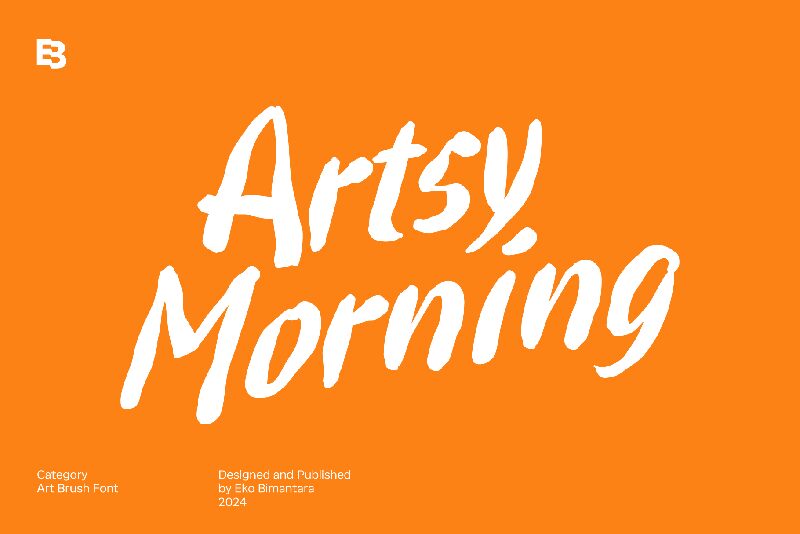
Artsy Morning
Artsy Morning font was designed by Eko Bimantara as a free brush font with a casual, expressive, and personal tone. It features an artistic flair, modern appearance, and warm contemporary appeal. Furthermore, the handmade aspect is the one that plays a major role in maintaining a personal feel to each of its characters. The outcome is both artsy and natural.
Free for download and use, this typeface can be especially useful in posters and ads. Stickers are great projects to consider thinking about this lovely font because the design space is limited – hence why an expressive style will make things more engaging for users – while still being appropriate on unseen landing pages or presentations!